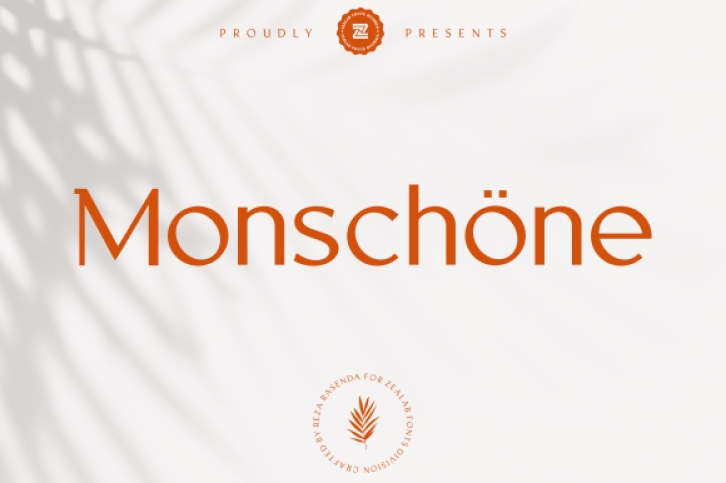
Monshcone is a minimalist and luxurious sans serif font. It will look particularly adept when used in logos, branding, packaging design, and much more. This masterfully designed typeface is a true must-have.